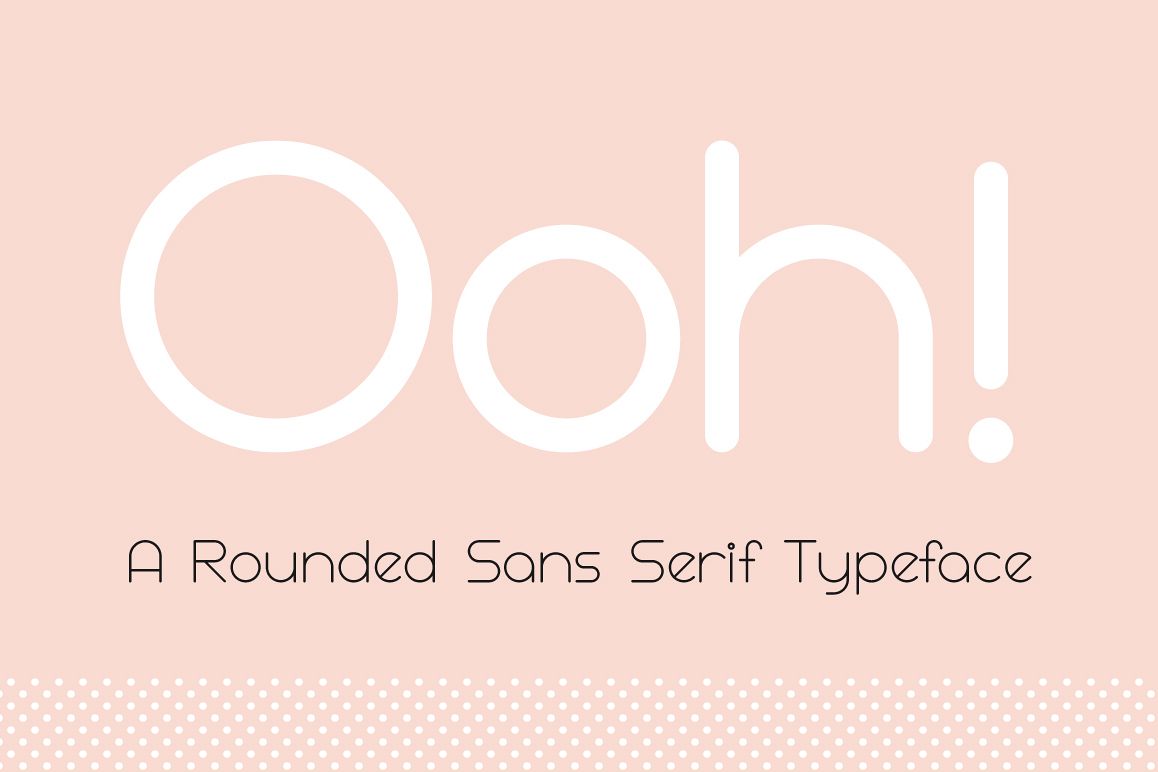
Ooh! Rounded Sans Serif Typeface
Ooh! is a sans serif typeface with rounded cap give off a relaxed, sweet and clean. It  was designed based on circle and line geometric shape which can be used as a minimal style header display or can be easily read as a text content.
Ooh! come in standard English characters(A-Z, a-z) with 3 ligatures, numbers(0-9) and 20 Punctuations. It includes 3 styles, Regular, Bold and Italic